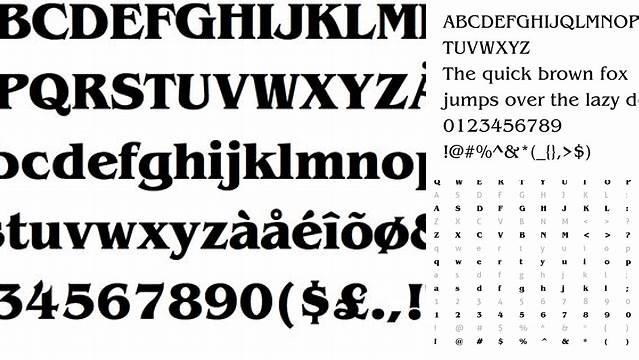
Are you on the hunt for the ITC Benguiat Bold font? Guys, you're in luck! This article is your ultimate guide to everything ITC Benguiat Bold, from where to find it for a free download to how to make the most of this iconic font in your designs. We'll dive into its history, its distinctive characteristics, and why it remains a beloved choice for designers around the globe. So, grab a coffee, settle in, and let's explore the world of ITC Benguiat Bold!
ITC Benguiat Bold Font: The Gateway to Stylish Typography
ITC Benguiat Bold font has a very rich history and is more than just a typeface; it's a statement. Designed by the legendary Ed Benguiat and released by the International Typeface Corporation (ITC), this font quickly became a favorite among designers. Its bold, elegant, and slightly retro feel makes it incredibly versatile, suitable for everything from headlines and posters to logos and branding. Finding a reliable source for a free download is essential for designers on a budget or those just starting out. We'll cover safe and legal methods to get your hands on this beautiful font without breaking the bank. The typeface's design evokes a sense of nostalgia while maintaining a modern edge, making it perfect for projects that require both a touch of classic charm and contemporary flair. Understanding its nuances, such as the optimal use of kerning and tracking, can greatly enhance its visual appeal, ensuring your text stands out in any context. The widespread availability of this font is a testament to its enduring popularity. In today's digital landscape, knowing how to obtain fonts legally and safely is crucial. When selecting the ITC Benguiat Bold font, consider the context of your project, as this typeface truly shines in applications that demand attention and sophistication. Whether you're a seasoned designer or a beginner, the ITC Benguiat Bold font is a valuable tool in your typographic arsenal. The ability to download and use such a high-quality font for free opens up endless creative possibilities. In addition to discussing download options, we will also delve into its licensing, use cases, and technical aspects to help you make the most of this incredible font.
The History and Characteristics of ITC Benguiat Bold
Understanding the ITC Benguiat Bold font begins with its designer and origin. Ed Benguiat, the brilliant mind behind this iconic font, designed it for the International Typeface Corporation (ITC). ITC, known for its innovative approach, released Benguiat Bold, making it accessible to designers worldwide. The font's characteristics are immediately recognizable: bold, with a slightly retro feel. The serifs are distinctive, giving the font a unique character. The contrast between thick and thin strokes provides elegance. The typeface is perfect for headlines, logos, and any design that needs to make a statement. It often conjures images of the 1970s and 80s. Its popularity grew during this period. The font's versatility allows it to work well in various contexts. The typeface's history is a study in how a font's design, combined with its initial release, can create a lasting impact on typography. From magazines to movie posters, Benguiat Bold quickly became a go-to choice. The font has a distinctive look. The font's bold strokes ensure legibility. The font has a remarkable legacy. Benguiat Bold is not just a font; it's a cultural icon. Today, it is still widely used in graphic design, branding, and advertising. It is a testament to its timeless appeal. Examining its history provides context, and its design provides value.
Ed Benguiat: The Genius Behind the Font
Ed Benguiat, the man who designed the ITC Benguiat Bold font, is a legend in the type design world. His impact on typography is profound and widespread. Born in New York City, Benguiat had a unique talent for creating visually striking and highly readable typefaces. His career spanned decades, during which he designed and contributed to hundreds of fonts. His work includes famous fonts, like Souvenir and Bookman. Benguiat's fonts are known for their elegance, readability, and distinct character. His ability to capture the essence of an era while creating something enduring is remarkable. His influence is seen everywhere. Benguiat's contribution to typography is immeasurable. Through his creativity, he left an indelible mark on the world of design. Benguiat's legacy includes the creation of many successful fonts. He has designed fonts for many companies. Benguiat was also a very influential teacher. His work continues to inspire designers. The impact of Benguiat's work is felt today.
The Design Elements: Exploring the Font's Unique Features
The ITC Benguiat Bold font has several distinctive design elements. These elements set it apart from other typefaces. The font's bold weight immediately grabs attention. The serifs, elegantly sculpted, offer a touch of classic style. The contrast between thick and thin strokes creates visual interest. The rounded edges soften the overall appearance, providing warmth. The italic version adds flair to the font. The font's x-height is relatively tall, which increases readability. The font's design allows it to perform well in various formats. The spacing between letters is carefully considered. The design of the lowercase letters is balanced and readable. The curves are well-defined, enhancing readability. Benguiat Bold's character set includes both uppercase and lowercase letters. These design elements are important. Each of these elements contributes to its unique character. These elements make it stand out. The elements give the font a sense of timeless elegance.
Using ITC Benguiat Bold in Your Designs: Best Practices
When using the ITC Benguiat Bold font, understanding the best practices will help you create effective designs. Use it for headlines, titles, and short text passages. It is suitable for making statements. Balance the font with other typefaces for body text to improve readability. Avoid using Benguiat Bold in long blocks of text. It works best in shorter, high-impact content. Experiment with different font sizes and weights. This helps you find the best visual balance. Adjust the kerning and tracking to optimize the letter spacing. Consider the context of your design. The font's bold style makes it ideal for projects that require attention. The font can be used in posters, logos, and branding. Choose colors that complement the font. Ensure the design is legible on various devices. Ensure consistency across your designs. Following these best practices helps you create stunning designs. Understanding these tips is important. Use it wisely to ensure your designs are both visually appealing and highly effective.